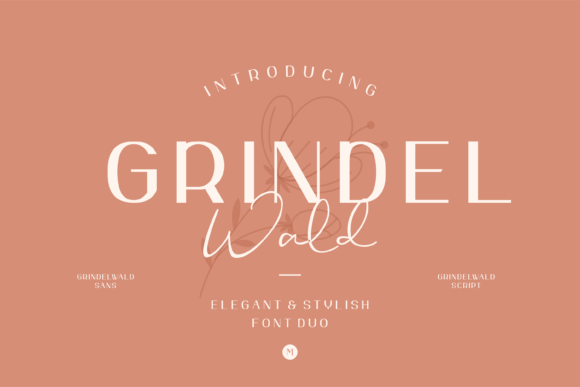
The Birth of a Timeless Design
Have you ever sat at your desk, staring at a blank page, waiting for inspiration to strike? The cursor blinks, and the silence is almost deafening. But then, it happens – a single word, a phrase, or a title begins to take shape. It’s in these moments that the power of typography truly comes alive. The right font can elevate your work from mere words to a work of art.
For designers seeking to infuse their creations with a touch of sophistication, the Grindelwald Font is a treasure trove of elegance and versatility. This sans serif font seamlessly blends classic calligraphic influences with a modern twist, making it an ideal choice for a wide range of projects, from letterheads and titles to stationery.
With the Grindelwald Font, designers can unlock a world of creative possibilities and bring their visions to life in a truly unique and captivating way.
Grindelwald Font Key Features
- Unique Characteristics: The font features a unique, modern sans-serif design with a touch of elegance and sophistication.
- Language Support: The font family supports multiple languages, including Latin, Greek, and Cyrillic scripts.
- Kerning and Ligatures: The font includes advanced kerning and ligature features for precise typographic control.
Grindelwald Font Review
Overall, I’m quite impressed with the Grindelwald Font! It’s a unique and beautiful script font that adds a touch of elegance to any design project.
- Beautiful script lines: The flowing lines of the Grindelwald Font create a sense of movement and sophistication.
- Highly customizable: With its numerous OpenType features, this font can be easily adapted to suit different design needs.
- Perfect for invitations and wedding designs: The font’s elegant and romantic feel makes it an excellent choice for creating beautiful invitations and wedding designs.
- May be too ornate for some designs: While the font is stunning, it can be overwhelming if used excessively or in a busy design.
- Lack of a bold weight: A bold weight would be beneficial for creating contrast and emphasizing important text.
- May not be suitable for small text sizes: Due to its ornate design, the font may become difficult to read when used in small text sizes.
Overall, I’d give the Grindelwald Font 4 out of 5 stars. It’s a fantastic choice for designers looking to add a touch of elegance and sophistication to their projects, but it may require some careful consideration to ensure it’s used effectively.
Grindelwald Font Practical Application Guide
Getting the Most Out of Grindelwald Font
For the best results, use the Grindelwald Font in bold or italic styles to add emphasis to your text. You can also pair it with other fonts to create a unique and eye-catching design. Experiment with different font sizes and colors to find the perfect combination for your project.
The Grindelwald Font is ideal for use in fantasy and adventure-themed projects, such as book covers, movie posters, and video game graphics. It’s also suitable for use in branding and marketing materials, such as logos and business cards.